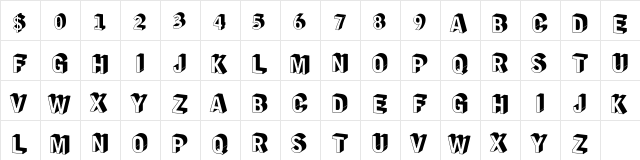
PonyMaker Regular
| Foundry | Xerographer Fonts |
| Designer | Xerographer Fonts Max Infeld |
Design Context for PonyMaker Typeface
PonyMaker is a composed and adaptable typeface that performs quietly and consistently across a wide range of design contexts.